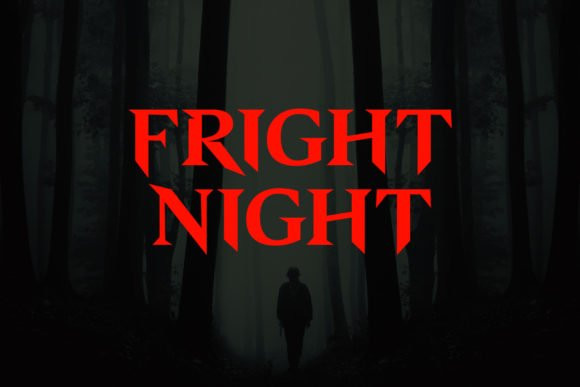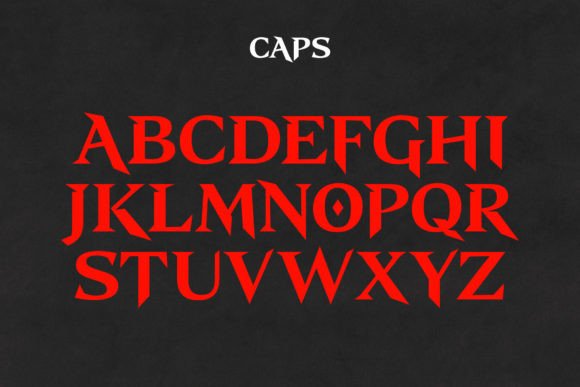
Fright Night Font
Fright Night is a cute and colorful display font. It embodies playfulness and authenticity and is the perfect choice for any children activity or school project.